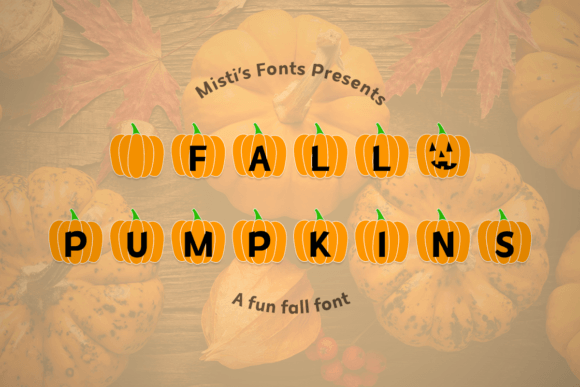
Immerse yourself in the enchanting world of Fall Pumpkins Font, a captivating collection of typography that will ignite your creativity and transform your designs into captivating expressions of the season's charm. Embark on a journey of artistic exploration with this font family, meticulously crafted to capture the essence of Autumn's splendor.
Envision the vibrant hues of a pumpkin patch, the golden glow of crisp leaves, and the cozy warmth of a crackling fireside, all perfectly encapsulated within each letterform. Fall Pumpkins Font is a symphony of colors and shapes, harmoniously blended to create a visual masterpiece that will elevate your designs to new heights of sophistication and charm.
Express your creativity with endless possibilities, from charming monogramed mugs that evoke feelings of nostalgia to festive seasonal banners that radiate joy. Unleash your imagination and craft heartwarming sublimation projects that capture the essence of the season. The possibilities are boundless, limited only by the depths of your artistic vision.
Immerse yourself in the vibrant color palette of Fall Pumpkins Font, where each shade tells a story of Autumn's beauty. From deep amber and fiery orange to soft pumpkin spice and enchanting forest green, this font family is a kaleidoscope of colors that will breathe life into your designs.
Fall Pumpkins Font is more than just a collection of letters; it's an invitation to embark on a creative adventure, to capture the magic of the season, and to share your unique artistic vision with the world. Whether you're a seasoned designer or just starting your creative journey, Fall Pumpkins Font will ignite your passion and guide you towards extraordinary design achievements.